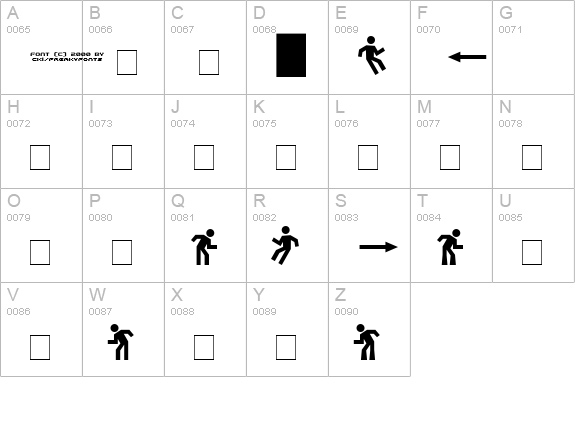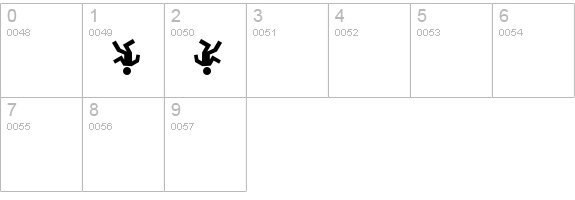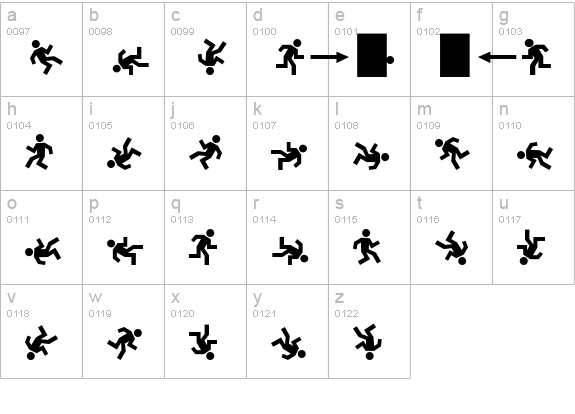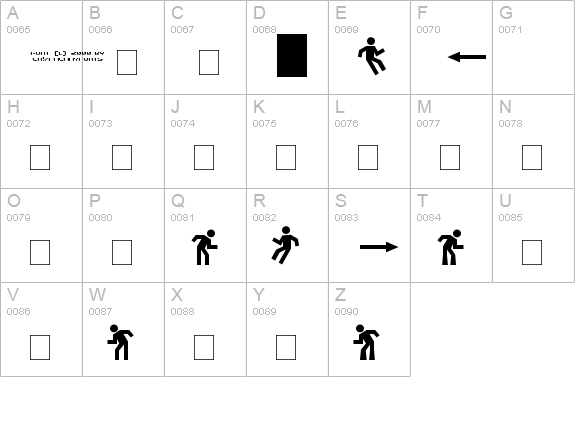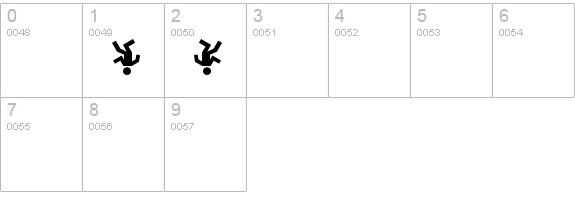
DanceFloor eXit Font Details
Introducing DanceFloor eXit font, a stunning display typeface that will bring your designs to life with its energetic and dynamic appeal. This font is the perfect choice for projects that require a modern and captivating aesthetic, such as music posters, album covers, brand identities, and more. With its bold and edgy letterforms, DanceFloor eXit font exudes a sense of movement and rhythm, capturing the essence of the dance floor. Every character is meticulously crafted to create a harmonious flow, making it an excellent choice for conveying a sense of excitement and vibrancy. One of the most appealing aspects of DanceFloor eXit font is that it is available for free download at FontsMarket.com. This means that you can easily access and utilize this font for all your creative endeavors, without any cost. Whether you're a professional designer or a casual enthusiast, this font provides you with the opportunity to experiment and explore your artistic vision, without any limitations. DanceFloor eXit font is highly versatile and adapts effortlessly to different design styles and contexts. Its unique personality and distinct visual presence make it a standout choice, allowing you to create captivating visuals that leave a lasting impression. So, whether you're looking to add a touch of excitement to your next project or want to make a bold statement, DanceFloor eXit font is the perfect tool in your creative arsenal. Download it for free today at FontsMarket.com and let your designs dance with style and flair.